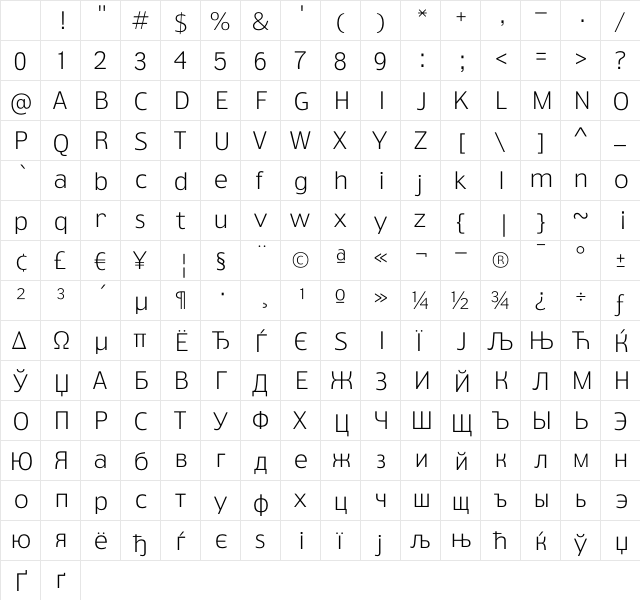
Complete TruthCYR Light glyph index. Displaying only characters natively supported by TruthCYR Light font.
TruthCYR is a composed and adaptable typeface that performs quietly and consistently across a wide range of design contexts. Its slender proportions lend an understated elegance to any composition.